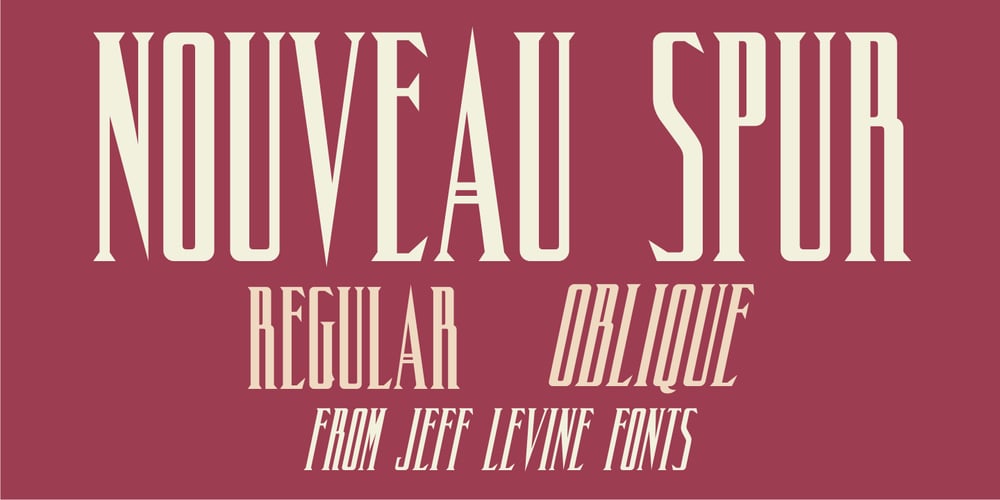
Nouveau Spur JNL Font Family was designed by Jeff Levine and published by Jeff Levine. Nouveau Spur JNL contains 2 styles and family package options. The condensed, spur serif hand lettering for the title on the 1906 sheet music cover of “Gee! But this is a Lonesome Town” inspired Nouveau Spur JNL; which is available in both regular and oblique versions.